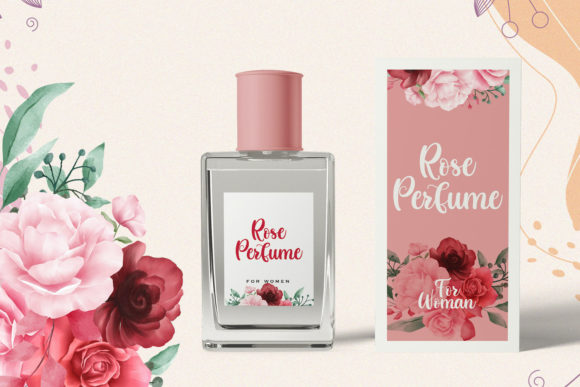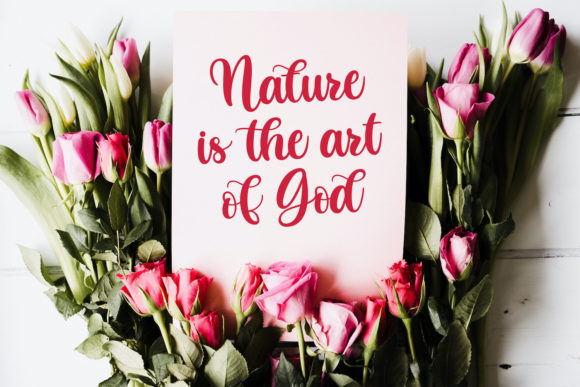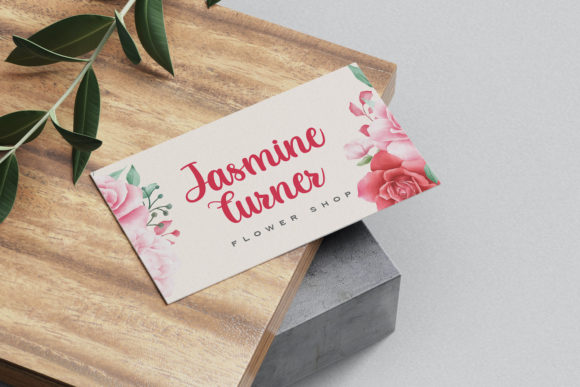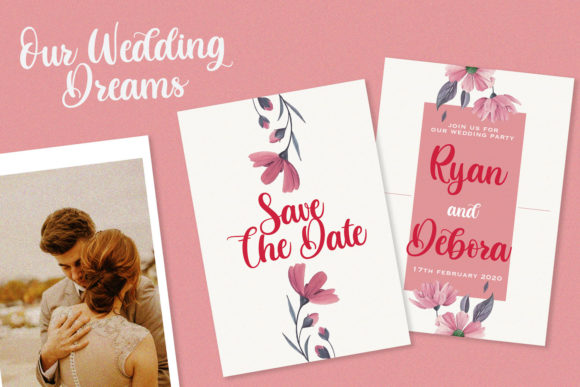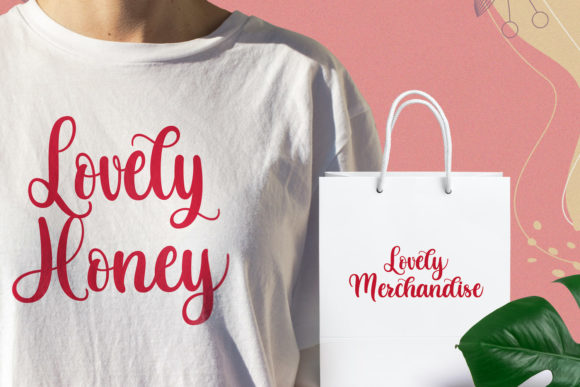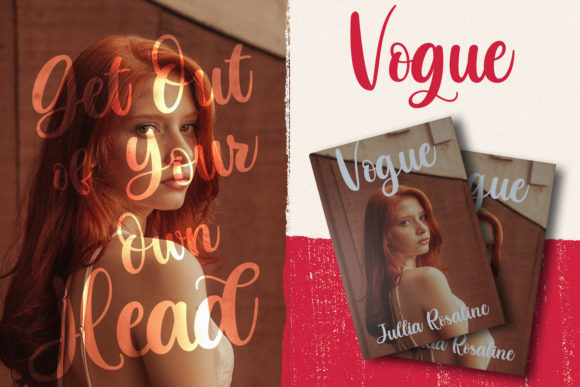
The Magical World of Butterfly Font: A Designer’s Delight
I’ll never forget the moment I stumbled upon the Butterfly font while working on a project for a client’s wedding invitation. I had been searching for the perfect font for hours, and just when I was about to give up, I found this delicate, elegant, and flowing handwritten font that made my design come alive! ✨ The Butterfly font has beautiful and well-balanced characters that match a wide pool of designs, making it a versatile addition to any creative project.
As a designer, I’m always on the lookout for fonts that can elevate my work. Here’s what I love about the Butterfly font:
- ✨ Delicate and elegant strokes that add a touch of sophistication to any design
- ✅ Well-balanced characters that make it easy to read and understand
- 💫 Versatile and adaptable to a wide range of design styles and themes
Of course, no font is perfect, and I’ve noticed a few quirks:
- 🤔 Some characters may appear a bit narrow or condensed, which can affect readability at smaller font sizes
- ⚠️ Limited availability of stylistic alternates, which might limit creative options for some designers
The Designer Inspiration Behind Butterfly Font
The Butterfly font was designed with the intention of capturing the delicate and elegant feel of a butterfly’s wings. The designer aimed to create a font that would be versatile and adaptable to a wide range of design styles and themes. With its beautiful and well-balanced characters, the Butterfly font is perfect for designers who want to add a touch of sophistication to their work.
| What is the Butterfly font best used for? | The Butterfly font is best used for designs that require a delicate and elegant feel, such as wedding invitations, branding materials, and luxury advertising. |
| Is the Butterfly font suitable for body text? | While the Butterfly font is beautiful, it may not be the best choice for body text due to its delicate and elegant feel. It’s better suited for headings, titles, and short paragraphs. |